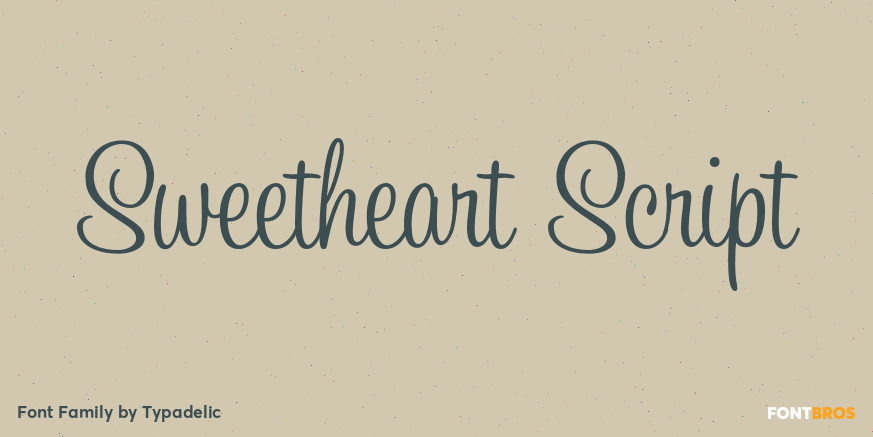
Sweetheart Script
About Sweetheart Script
Sweetheart Script is based on the elegant script styles of vintage greeting cards. It is a joining script font with a beautiful flow to it and will lend a charming look to your journaling or titling. It\’s feminine in nature and just bold enough to attract…